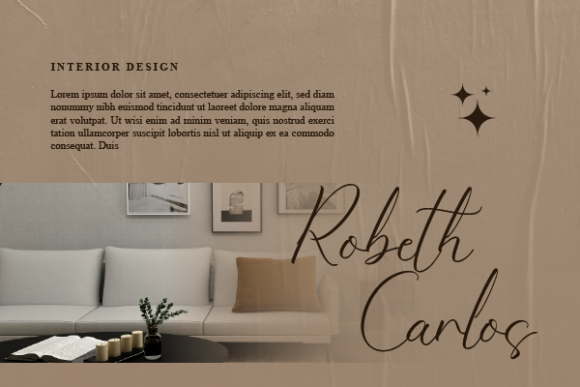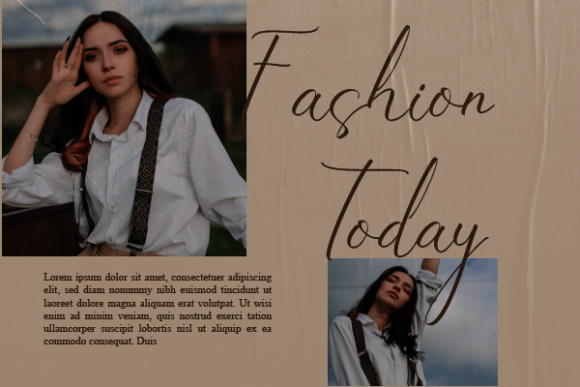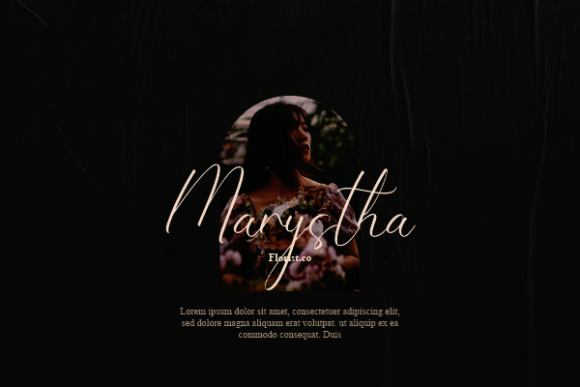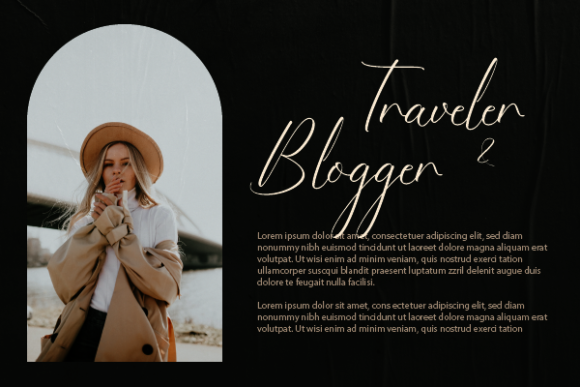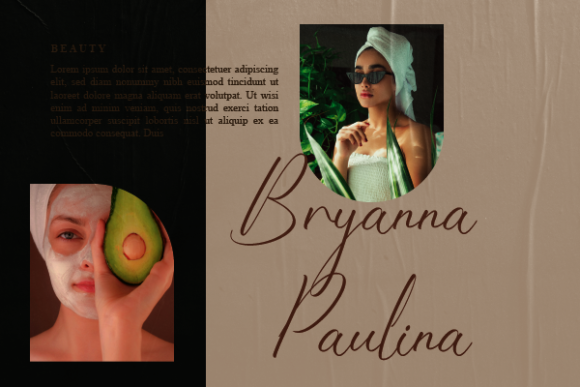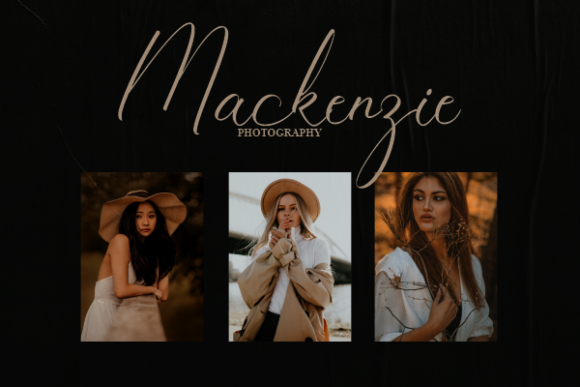
Introduction to Heather Rutherford Font Font
Fonts play a crucial role in design, and the Heather Rutherford Font font is a typeface that brings both character and versatility to any project. Whether you’re working on a branding project, a website, or a print design, the Heather Rutherford Font font offers a unique style that can elevate your work.
Heather Rutherford is an exquisite handwritten font, masterfully designed to become a true favorite.
It maintains its classy calligraphic influences while feeling contemporary and fresh Fall in love with it and bring your projects to the highest levels.
Key Features of Heather Rutherford Font Font
Why Choose Heather Rutherford Font Font?
The Heather Rutherford Font font is more than just a typeface – it’s a design tool that helps you communicate your message with style and clarity. Its unique character set and versatile design make it suitable for a wide range of applications, from elegant invitations to bold headlines.
With its carefully crafted letterforms and balanced proportions, the Heather Rutherford Font font ensures readability and visual appeal across all mediums.
What makes Heather Rutherford Font font special?
The Heather Rutherford Font font stands out with its unique design, exceptional readability, and versatility across various design applications.